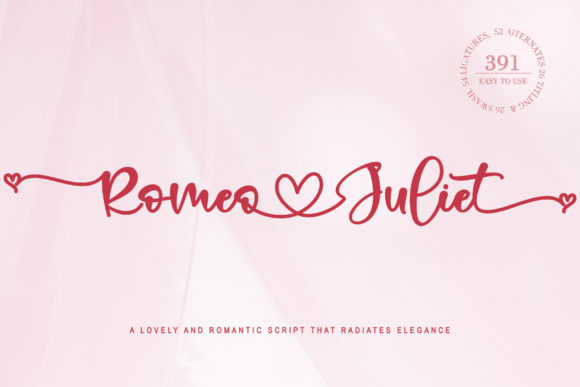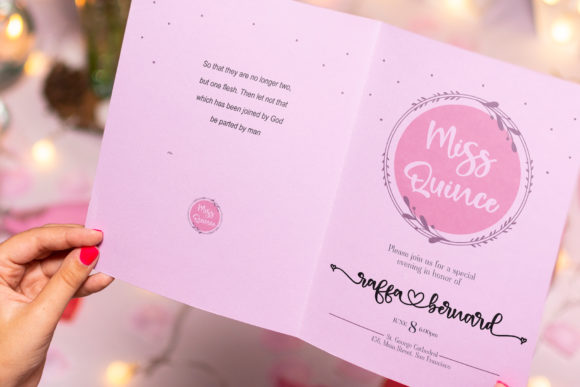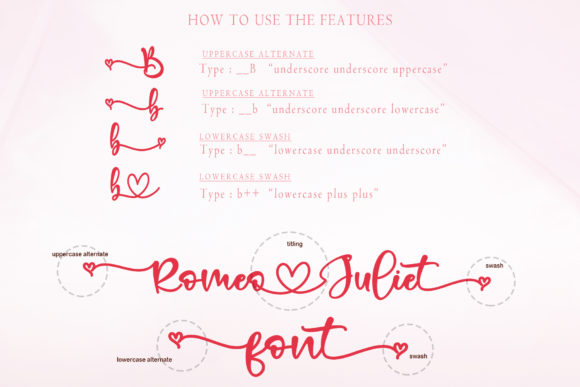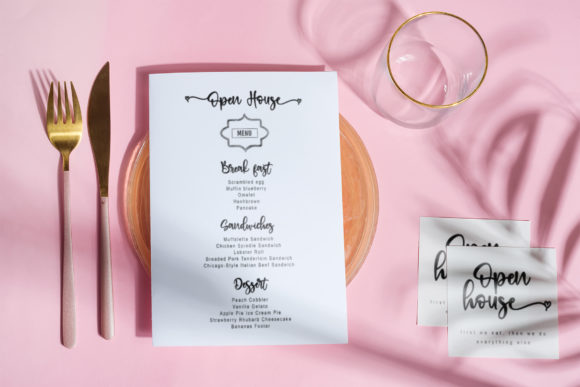
Romeo Juliet Font: Romantic Handwritten Script for Wedding Design
About the Romeo Juliet Font
The Romeo Juliet Font is here to transform your projects with its distinctive character and style. Romeo Juliet is a beautiful and romantic handwritten font. It features amazing heart-shaped titling. This font is PUA encoded which means you can access all of the cute glyphs and swashes with ease!
Fall in love with its authentic feel and use it to create gorgeous designs.
Its elegant, romantic style makes Romeo Juliet ideal for wedding invitations, branding for luxury goods, or short, impactful headlines. The swashes and heart details shine in projects requiring a touch of whimsy and sophistication, such as logos, social media graphics, and short-form marketing materials. However, its highly decorative nature makes it unsuitable for body text or lengthy passages; readability would suffer significantly.
Pairing Romeo Juliet with a clean sans-serif like Lato or Open Sans for body copy provides excellent contrast and visual balance. For a more traditional feel, a classic serif such as Garamond or Playfair Display complements its romantic charm. Avoid pairing it with other highly decorative fonts to prevent visual clutter.
The overall personality of Romeo Juliet is undeniably romantic and elegant, yet playful. Its delicate strokes and charming details communicate a sense of luxury and handcrafted quality.
Romeo Juliet Font Usage Examples
Romeo Juliet Font Example